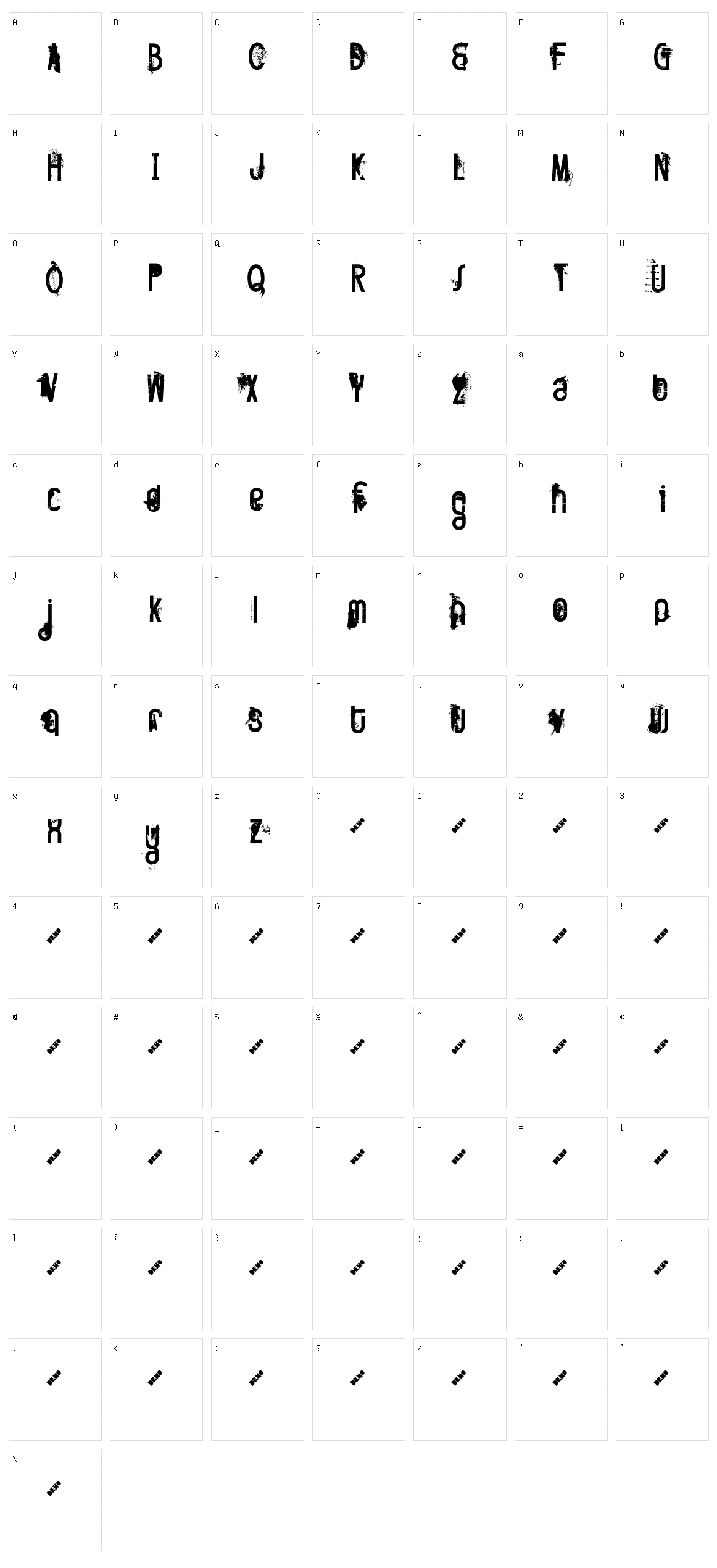
The free font FT Twisted Ontogenesis is carefully designed by Fenotype, showcasing a thoughtful balance of creativity and usability and falls under the Destroy font style. When you download the ZIP file, it contains only 98.47 KB of font files, making it lightweight and quick to download. Please review the license details below to understand permitted usage and distribution rights. If license information is not available, we recommend using this font for personal projects only or contacting the author directly for commercial usage permissions.